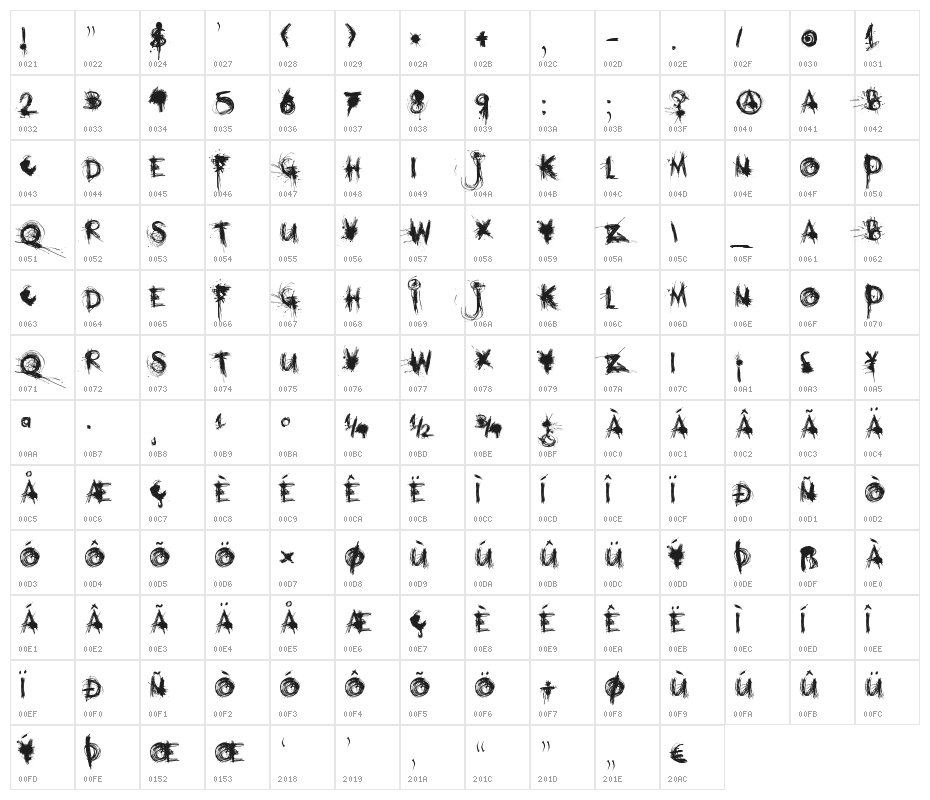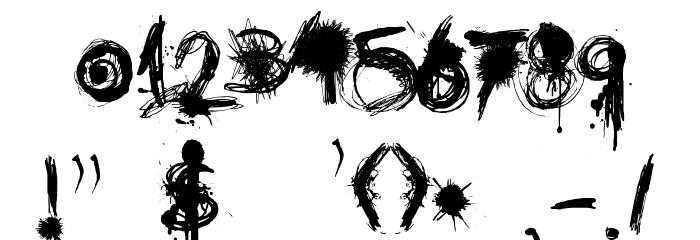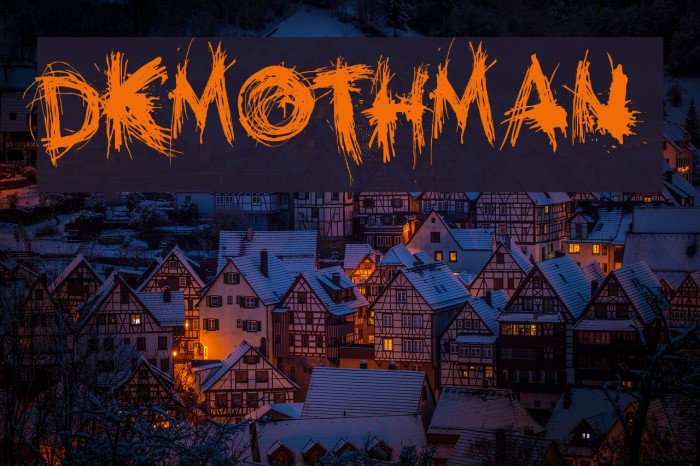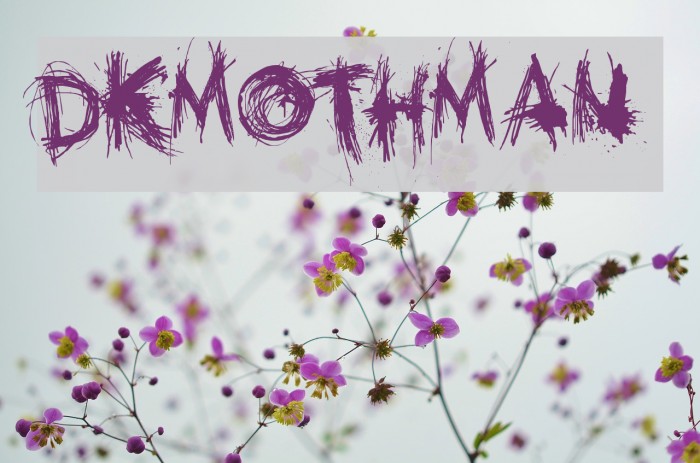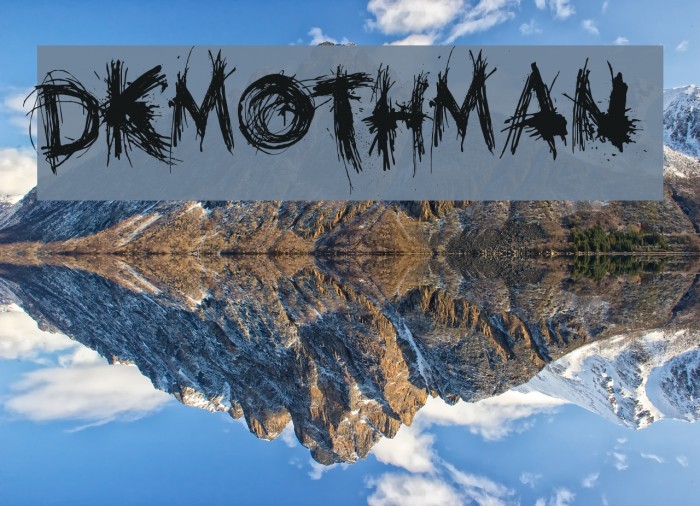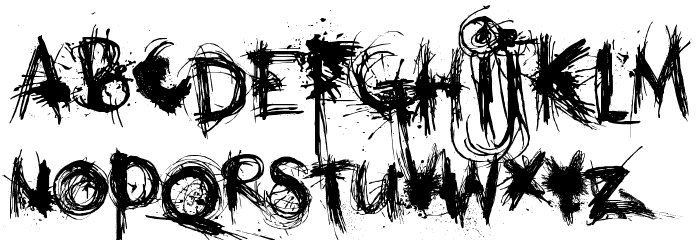
DKMothman Font
DKMothman Description
This font exudes a chaotic and distressed aesthetic, characterized by its jagged, uneven strokes and splattered ink effects. The letters appear as if they have been hastily scratched or painted, giving off a raw, grunge vibe. Each character is unique, with varying levels of distortion and irregularity, creating a sense of movement and unpredictability. The font's aggressive style is reminiscent of graffiti or horror-themed designs, making it stand out with its bold and unconventional appearance. The numbers and special characters follow the same theme, adding to the overall cohesive yet chaotic look.
| Overall Style | Grunge, Distressed |
| Proposed Projects | Ideal for horror movie posters, edgy album covers, Halloween event flyers, or any project requiring a bold, unsettling aesthetic. |